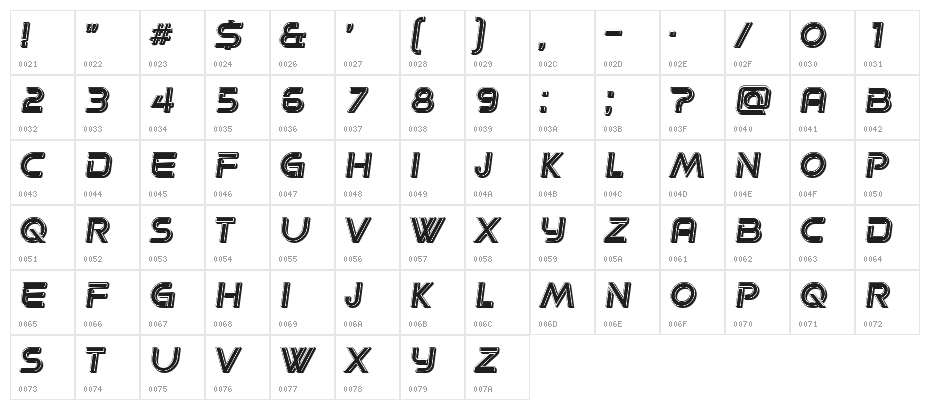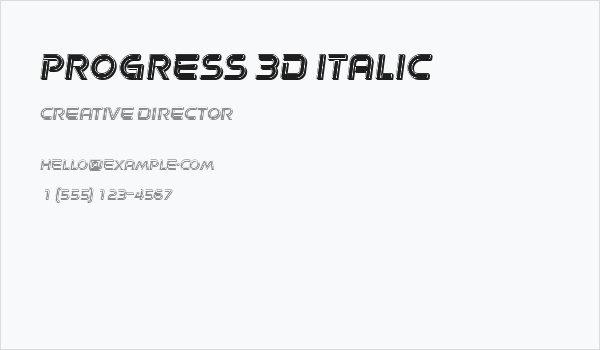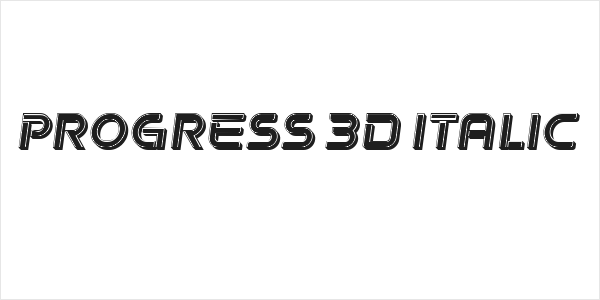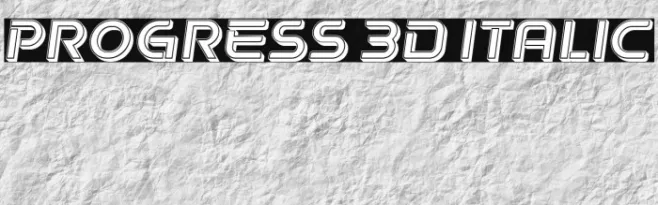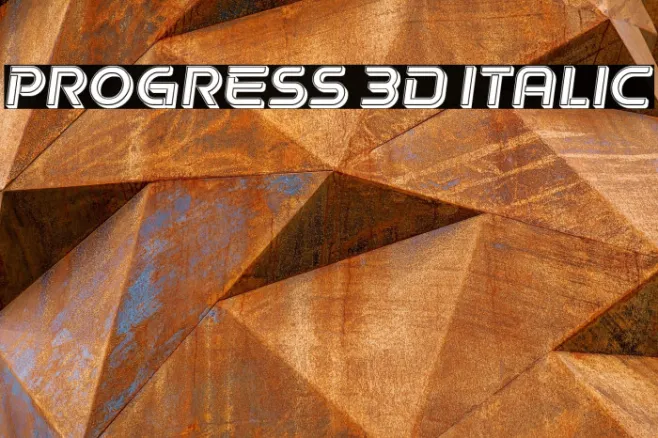
Progress 3D Italic Font
Progress 3D Italic Description
This font features a bold, three-dimensional design with a distinct italic slant, giving it a dynamic and futuristic appearance. The characters are outlined with a shadow effect that enhances the 3D illusion, making each letter stand out prominently. The uppercase and lowercase letters maintain a consistent style, with sharp angles and clean lines that contribute to its modern aesthetic. The numerals and special characters are designed to match the overall style, ensuring uniformity across all glyphs. This font is ideal for projects that require a strong visual impact and a contemporary feel.
| Proposed Projects | Ideal for video game titles, tech-themed posters, futuristic branding, and digital media. |